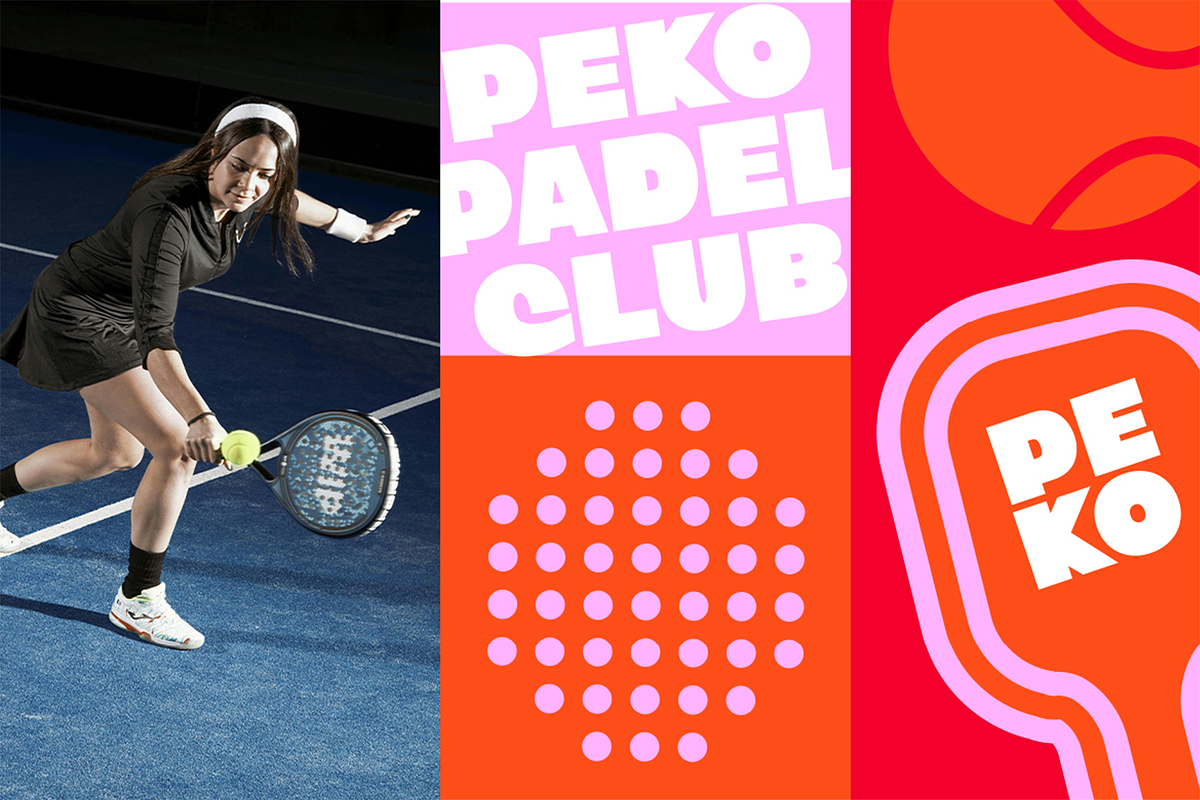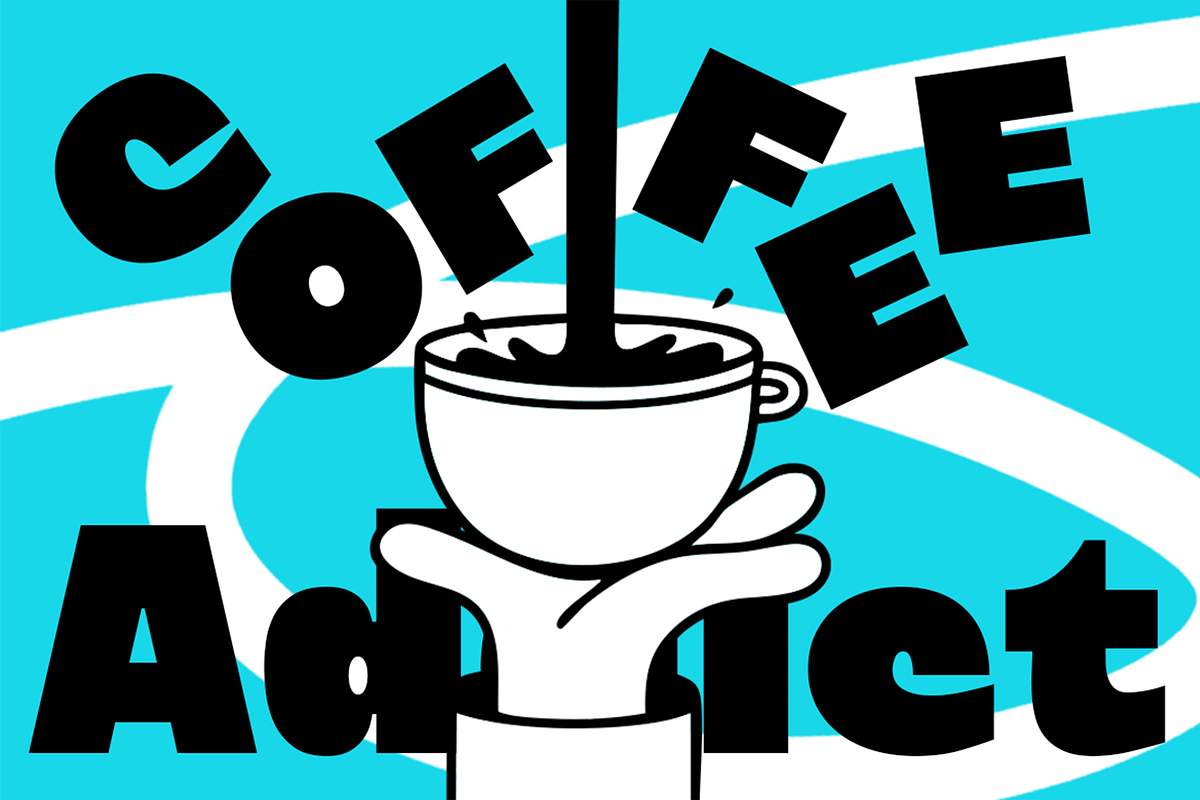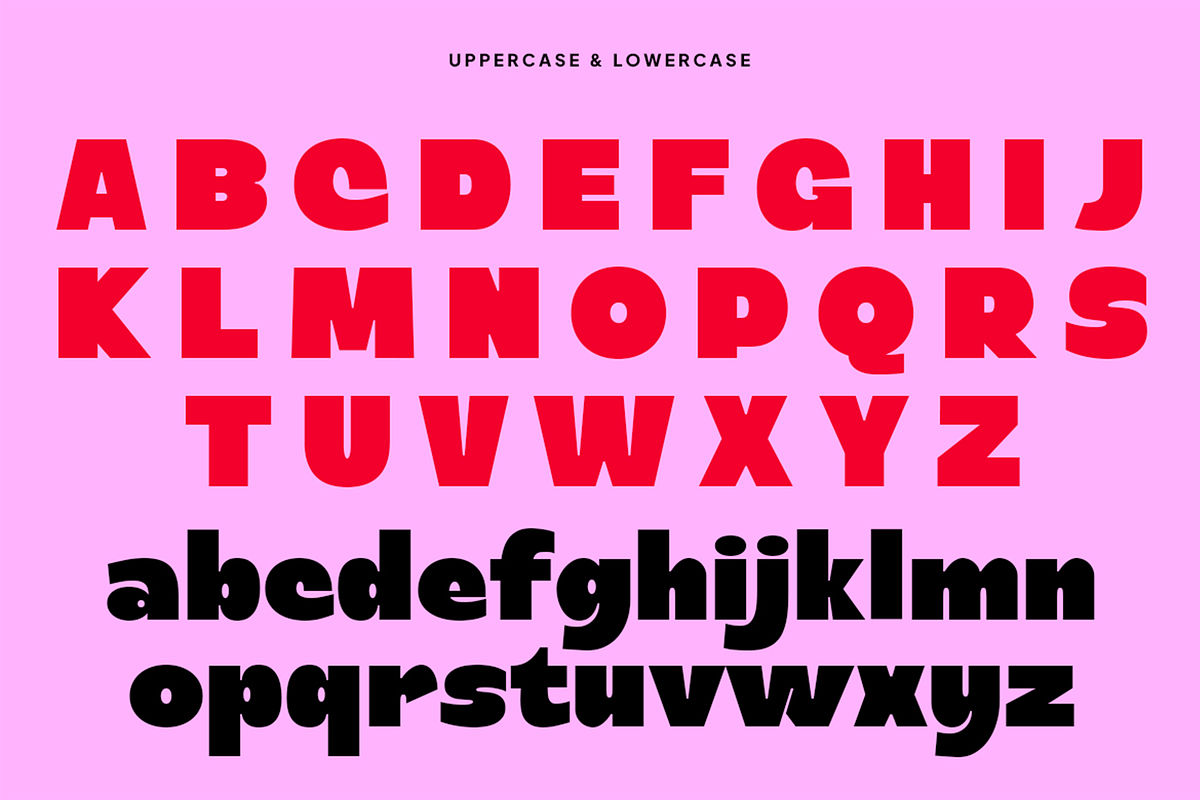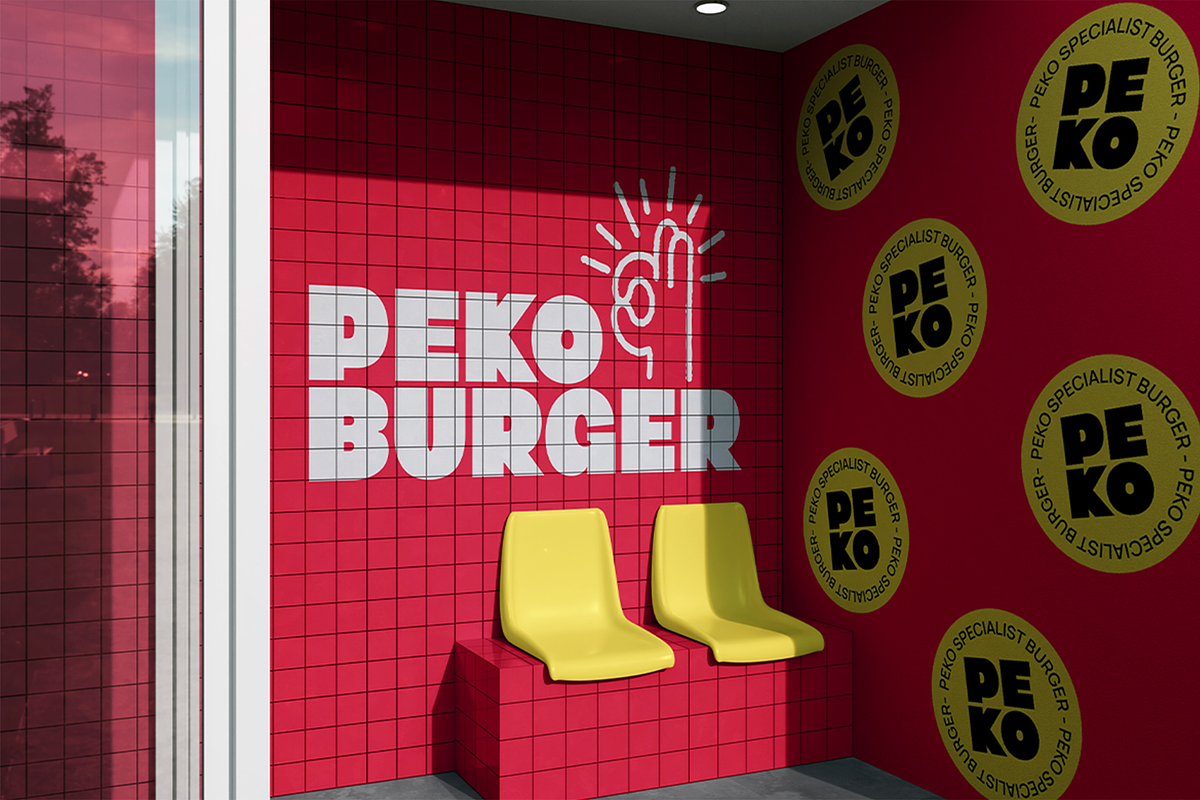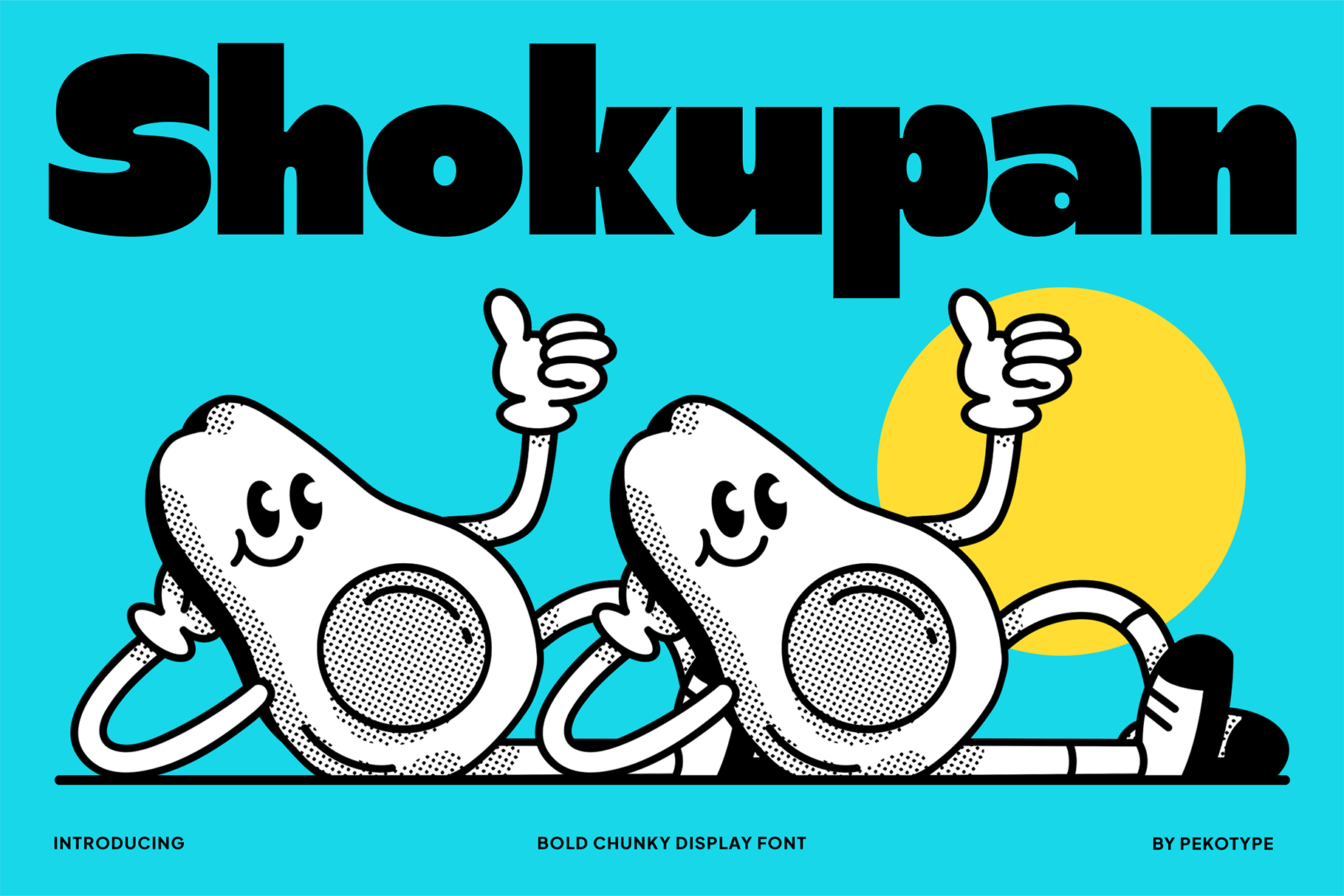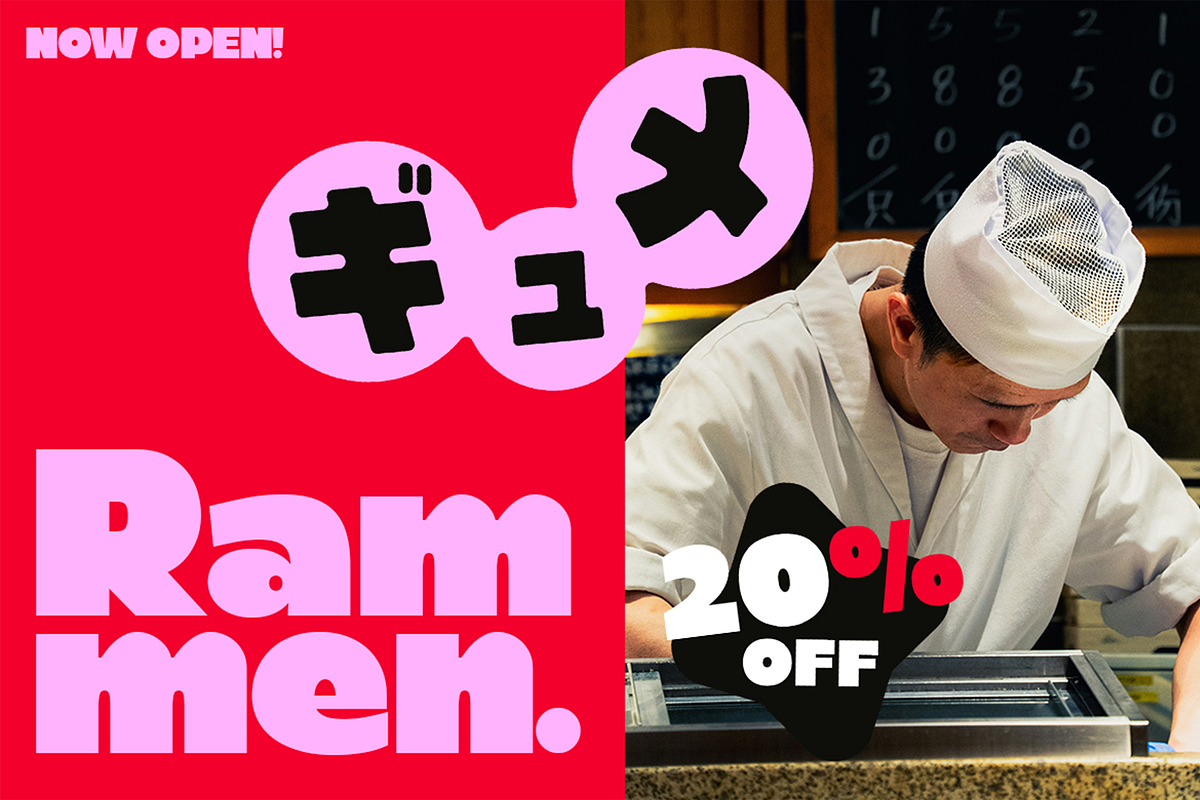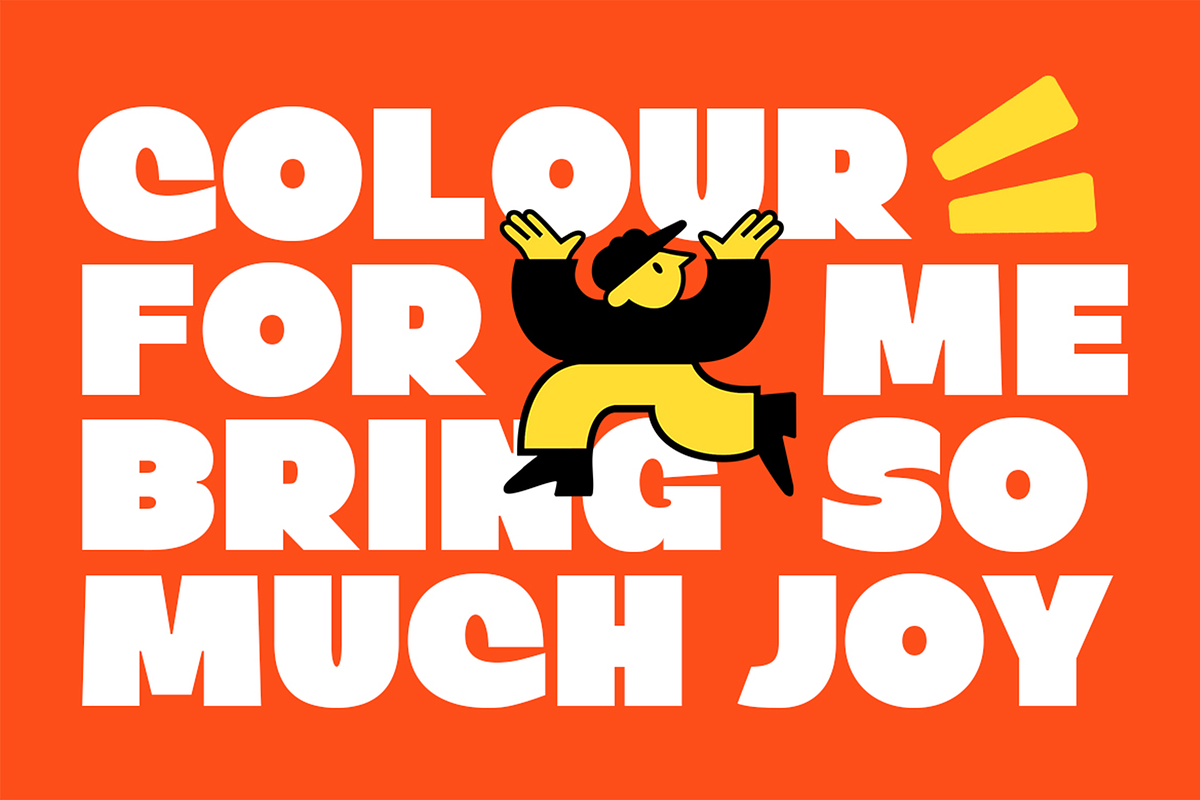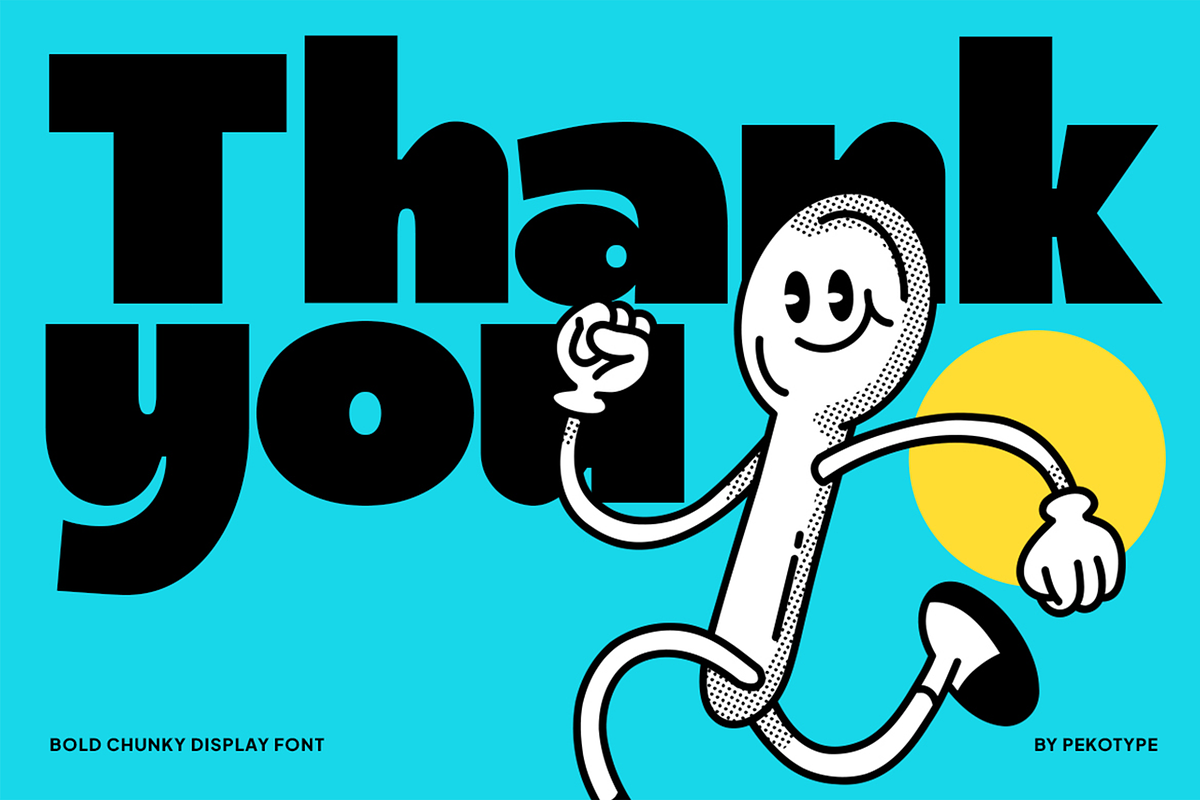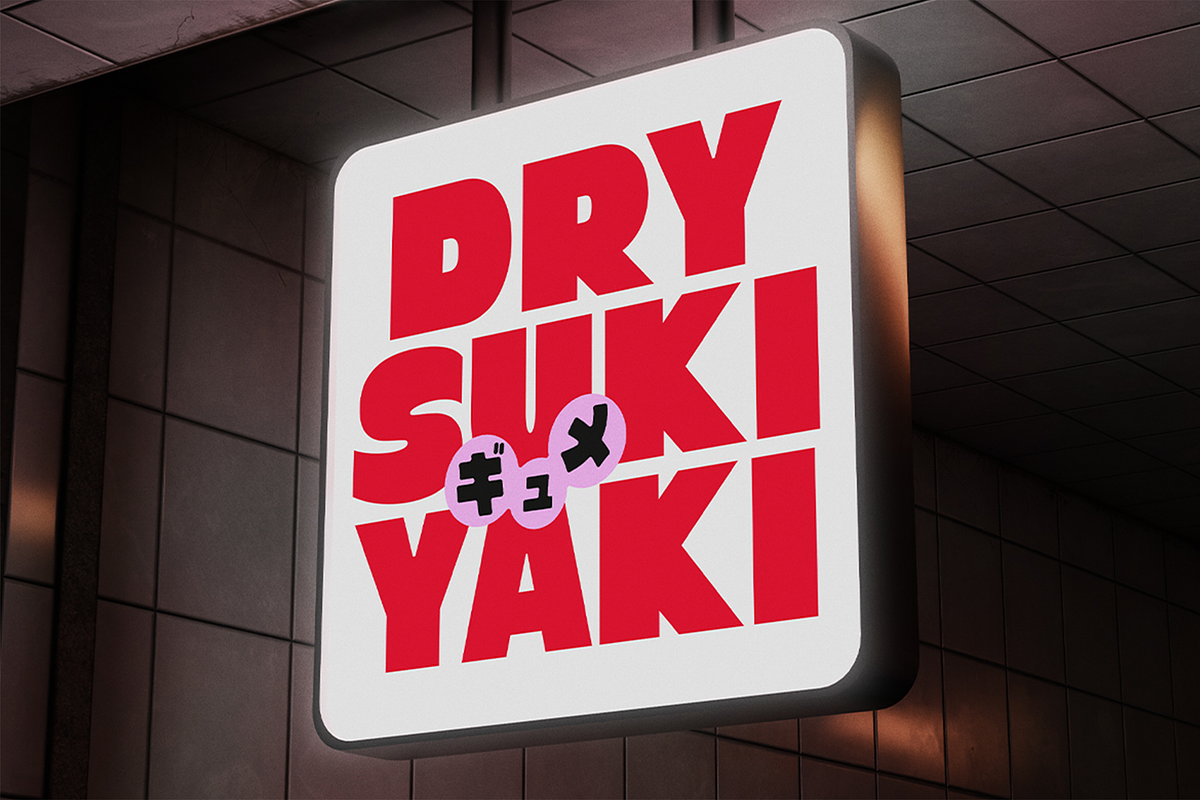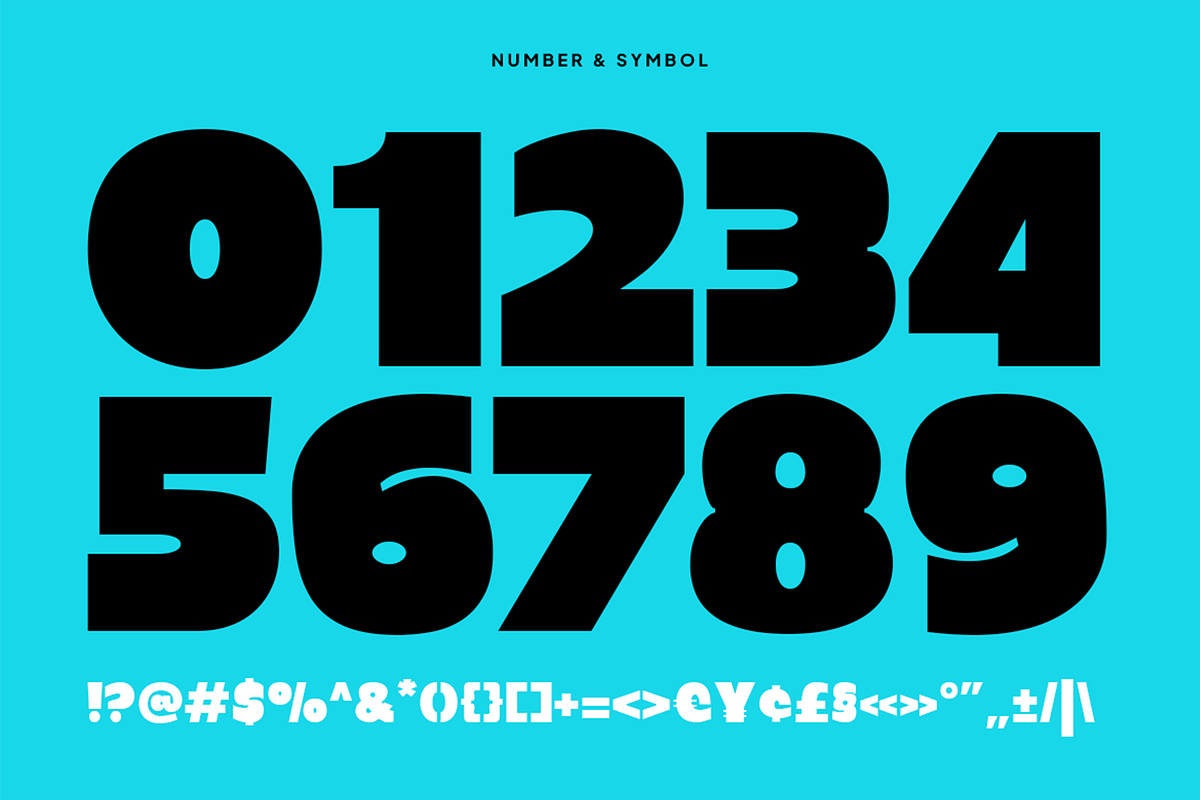
Shokupan - Bold Chunky Display Font
Shokupan – Bold Chunky Display Font
Say hello to Shokupan, a bold and chunky display font baked to perfection! With its playful curves and strong personality, this font brings instant happiness to any design. Inspired by fun, friendly vibes and bold expression, Shokupan is perfect for designers who love typography that stands out and smiles back.
Use it for branding, packaging, logos, posters, and social media — anywhere you need a punch of personality. Each letter is crafted to be eye-catching and joyful, making your message feel bold, confident, and full of life.
Shokupan comes with uppercase and lowercase letters, numbers, symbols, and full multilingual support, ready to bring a dose of fun to every language.
So, if you’re after a bold, playful, and modern typeface that makes your design pop with charm and energy, Shokupan is here to serve you fresh and warm!